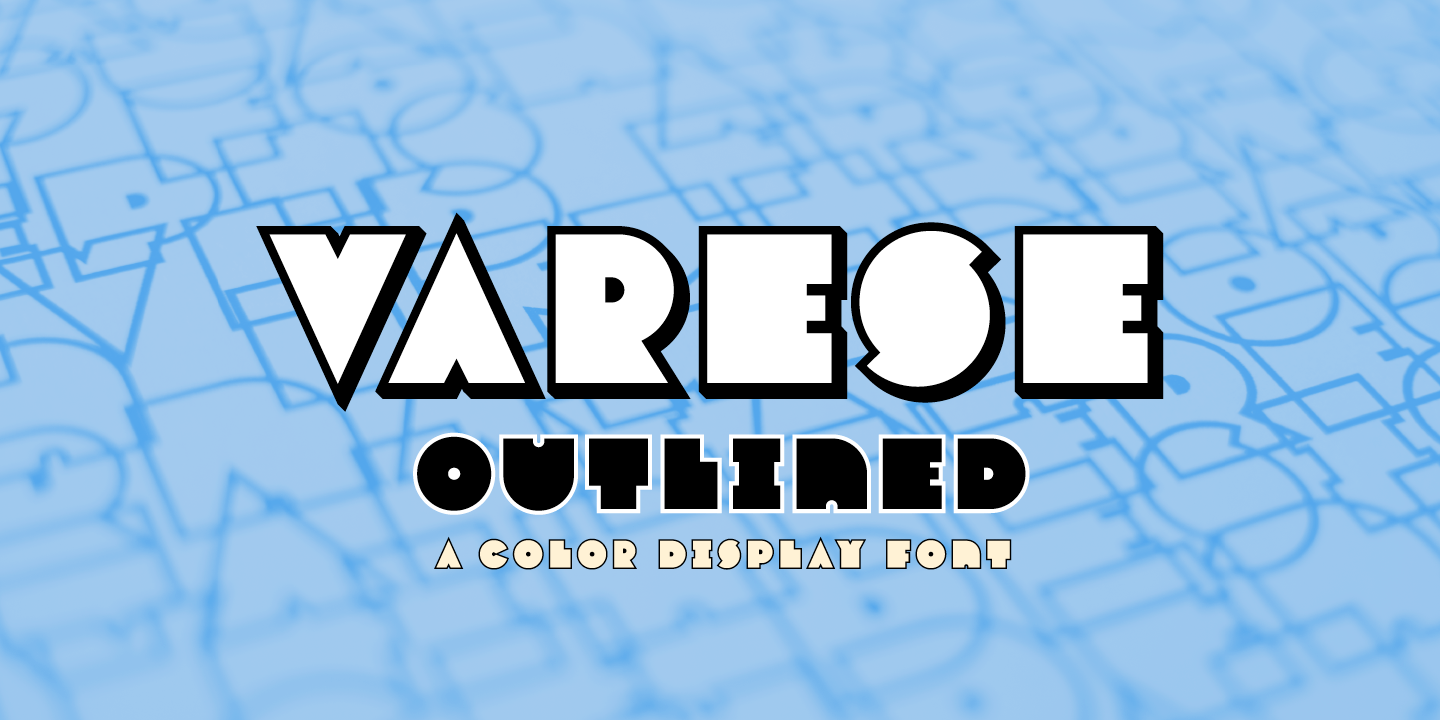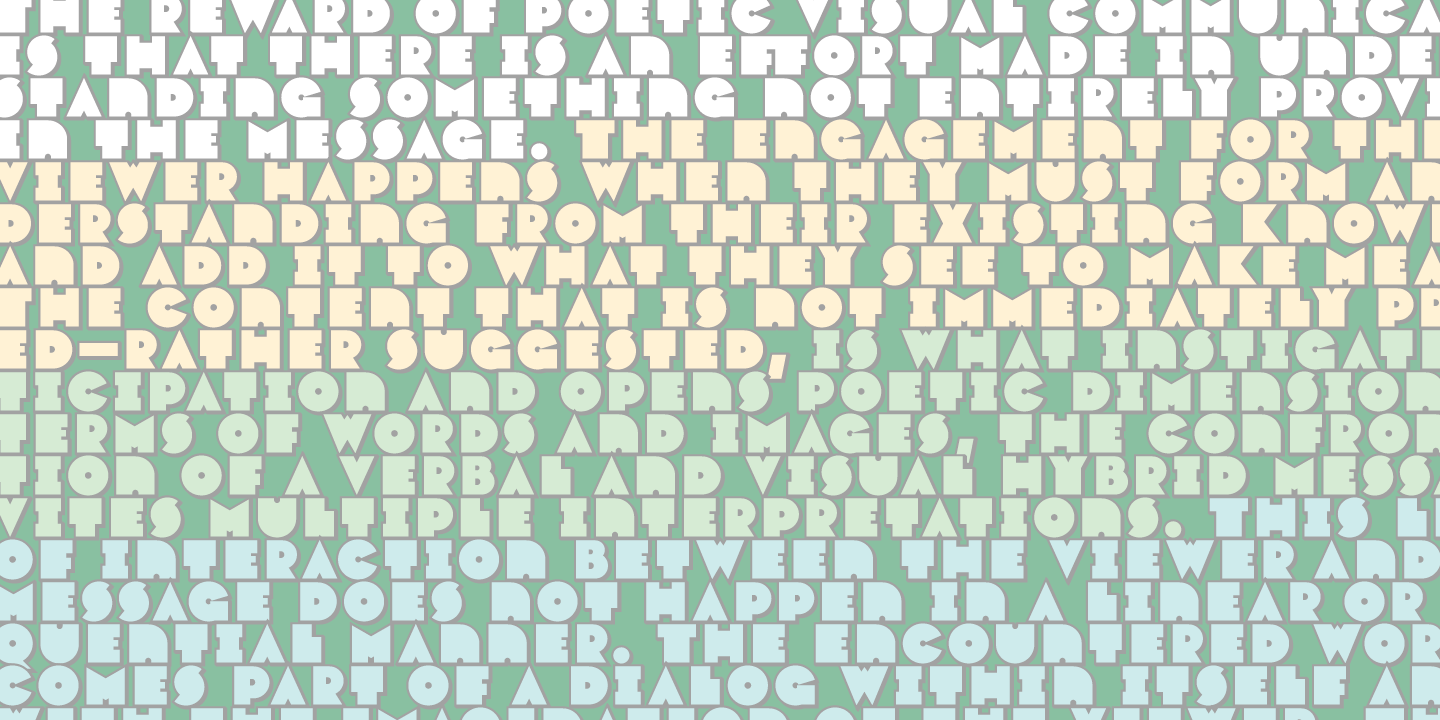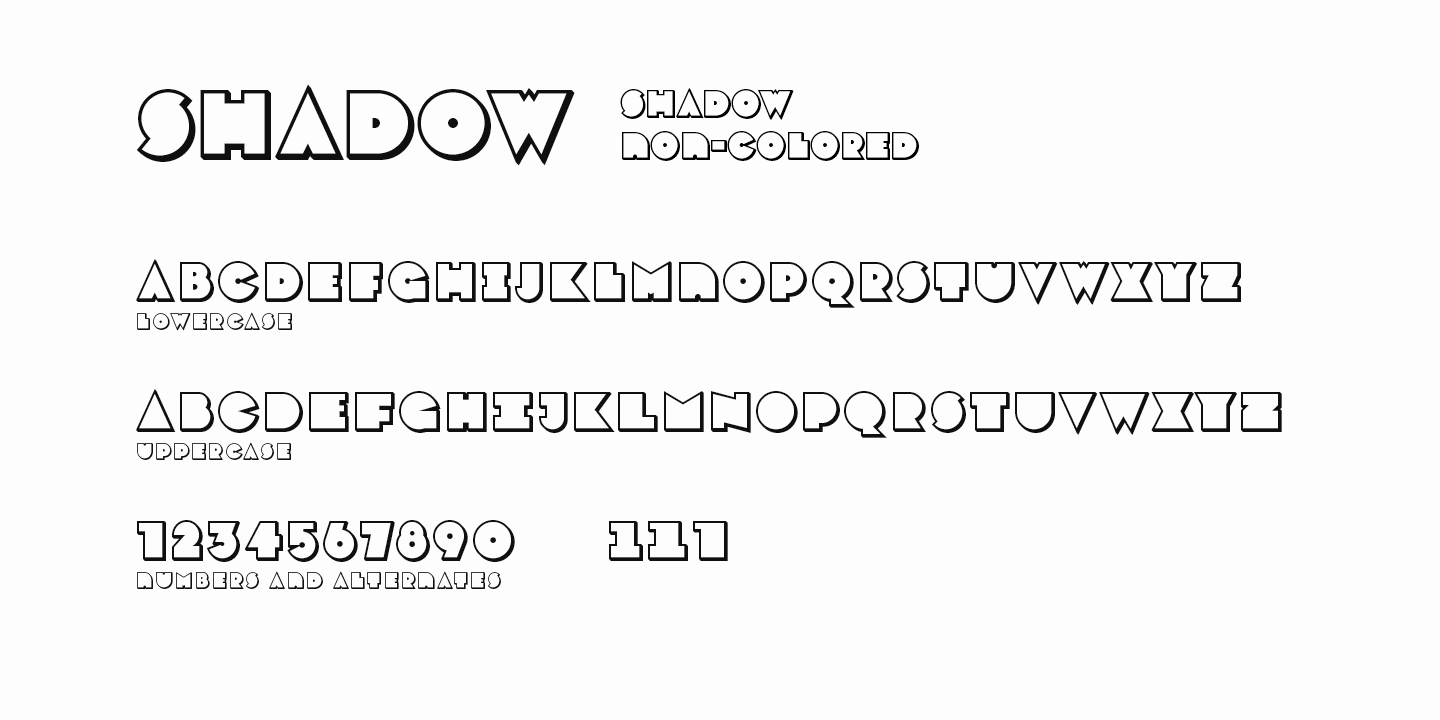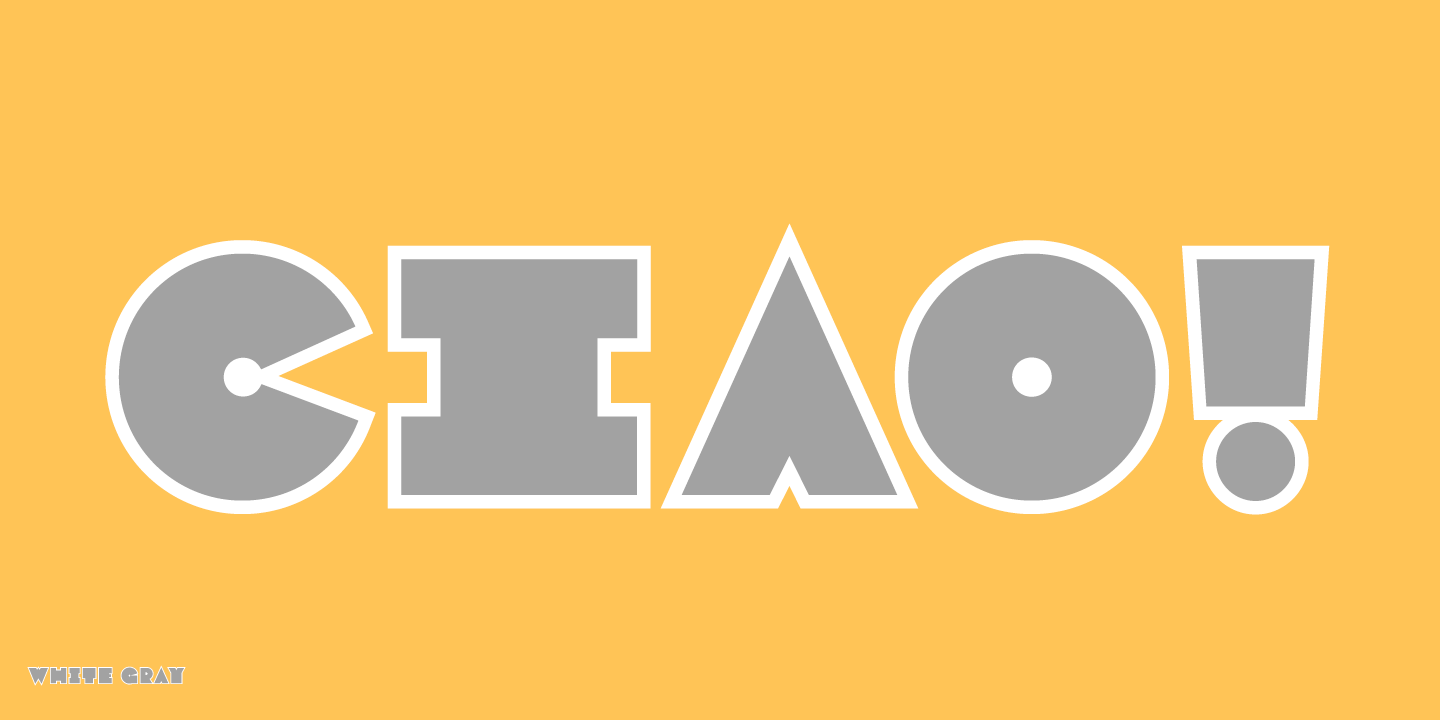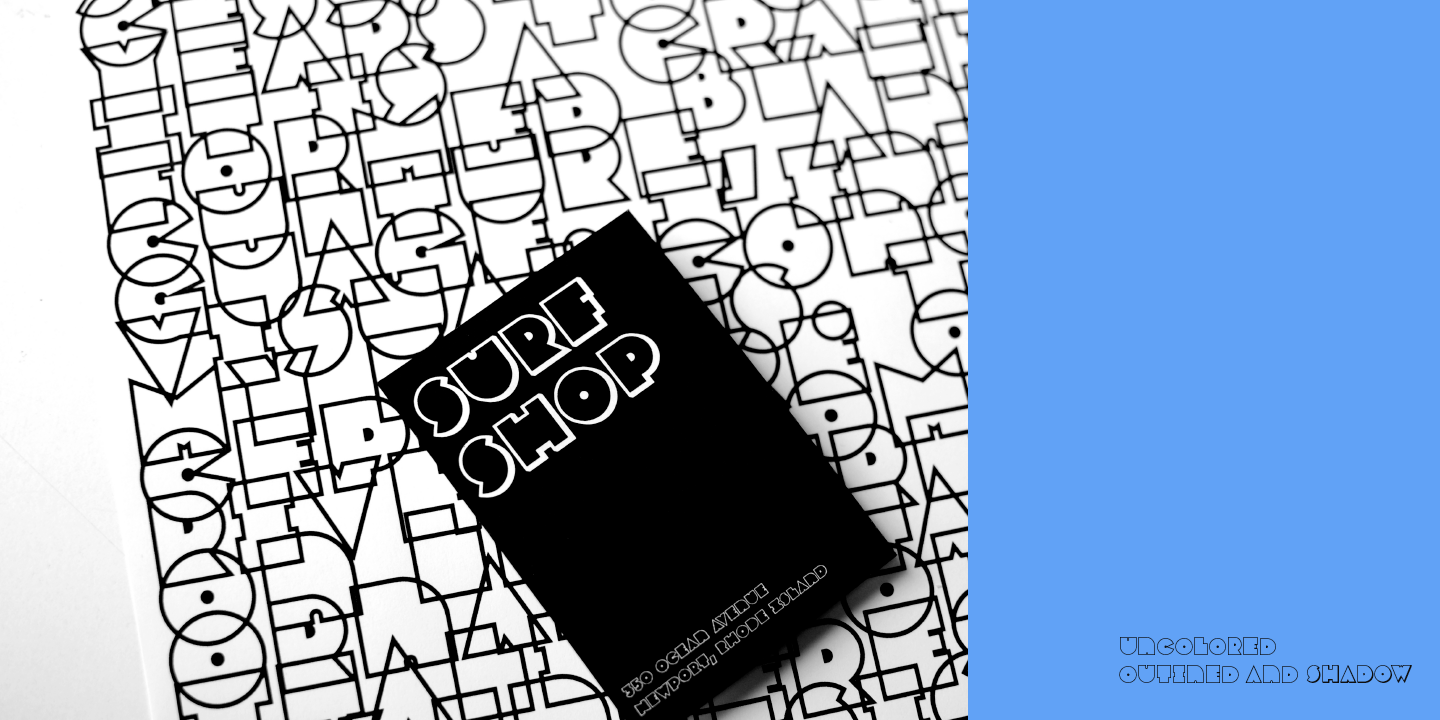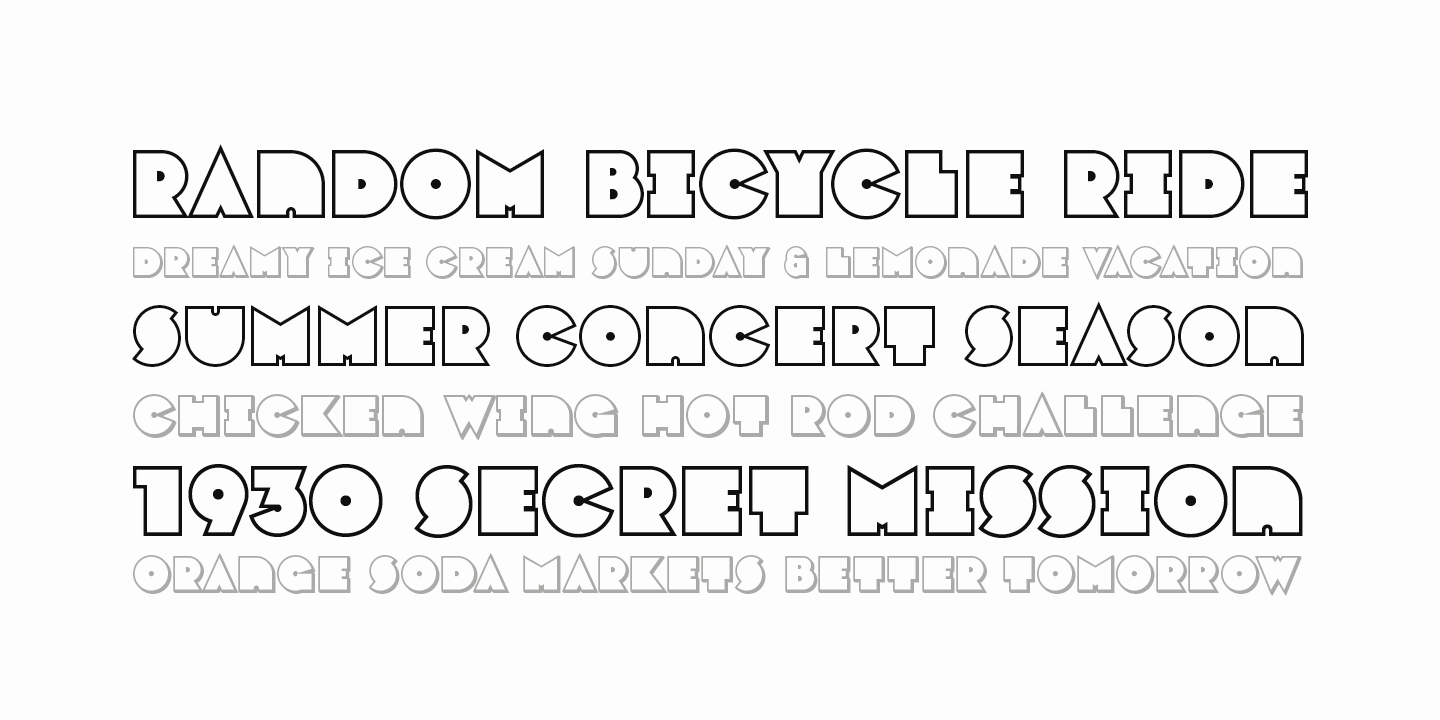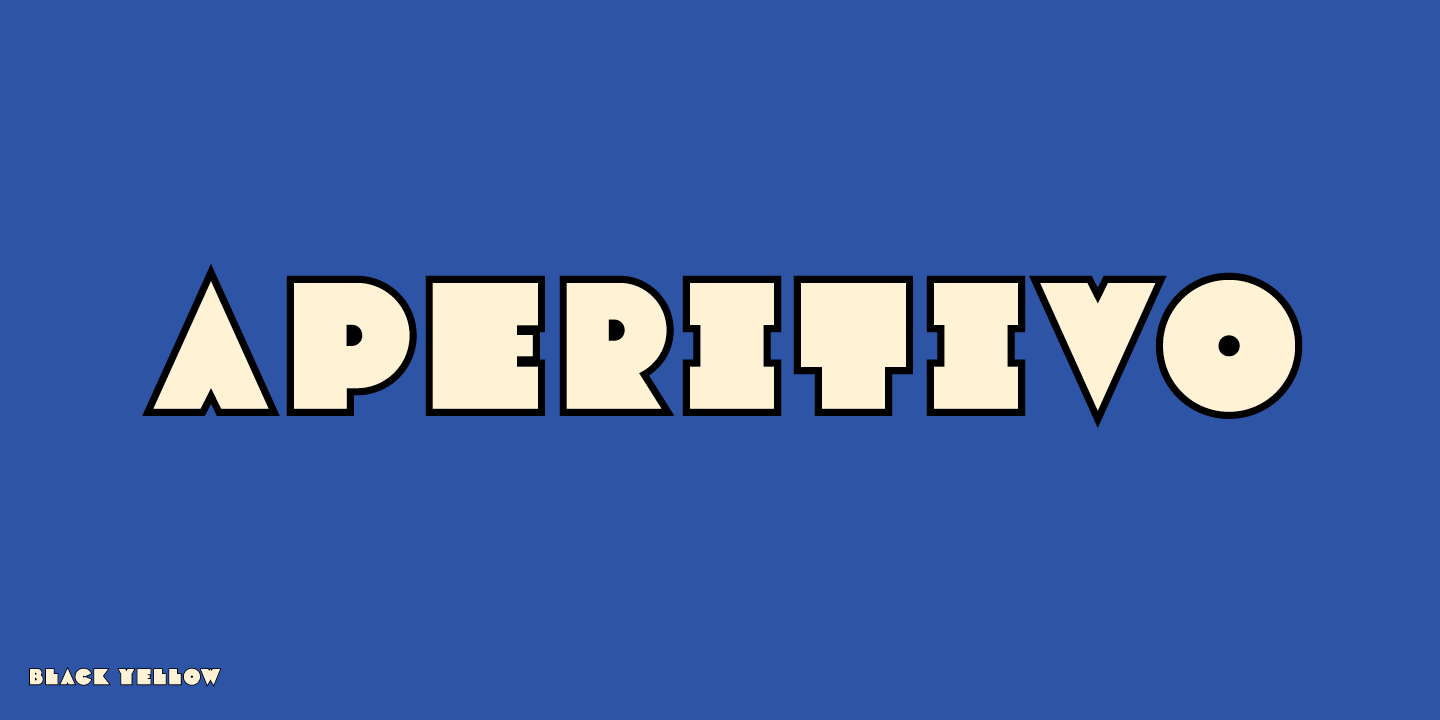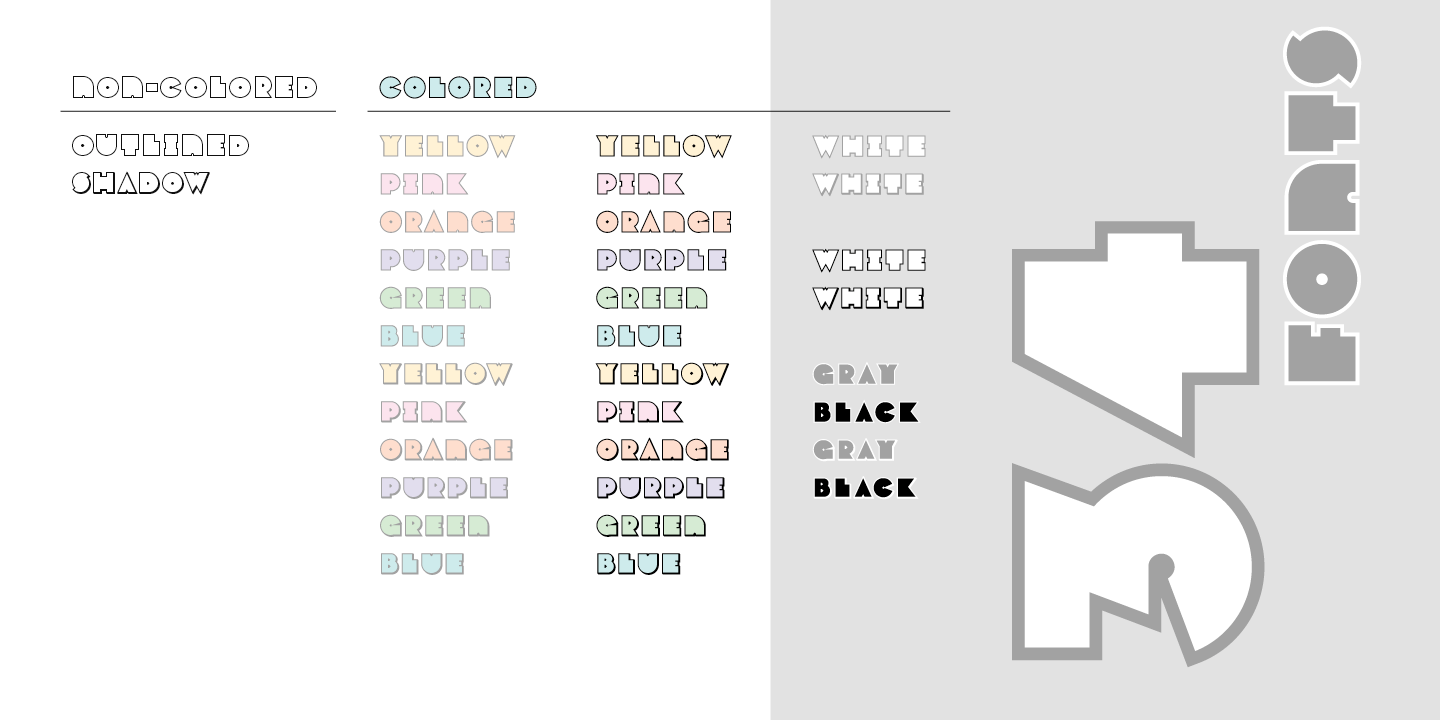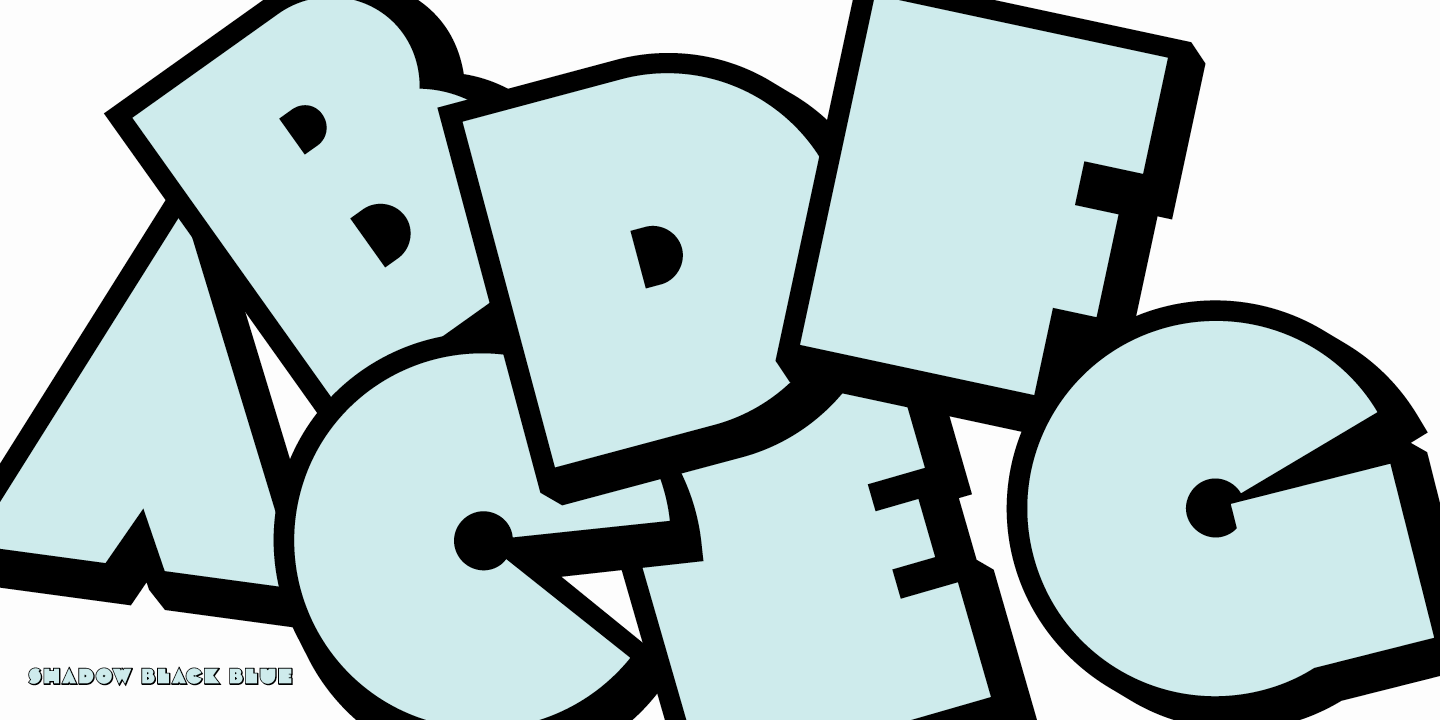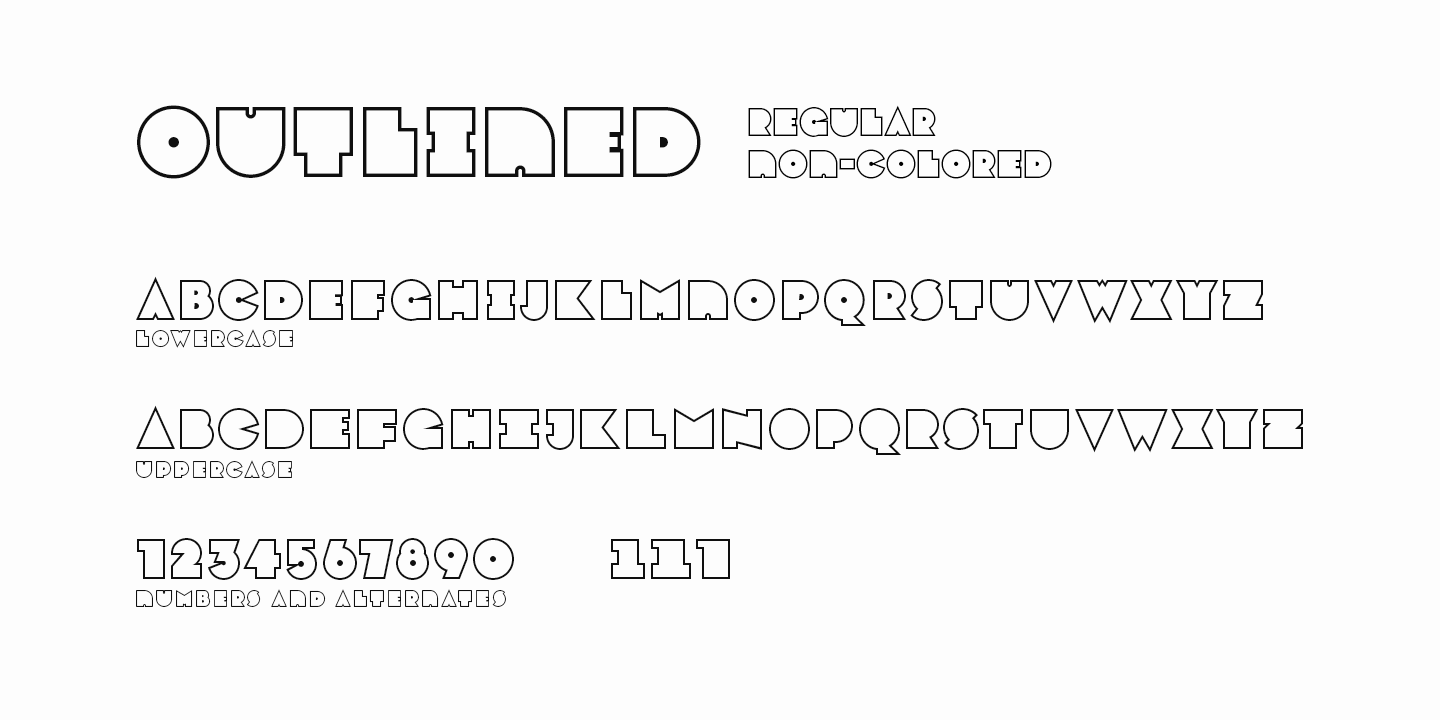
Varese Outlined
Font Family by Tarallo Design
Varese Outlined is the perfect font for giving content a retro, dimensional, and playful feel. Use it for headlines or short body text for an optimistic or nostalgic tone. It comes in two variations, outlined and shadow. It has standard uncolored and colored options. Please see the slides to know what each color font is named.?
This geometric and modular typeface was inspired by Italian posters of the 1920s and 1930s. Its design playfully explores the boundaries between unity and variety. The blocky characteristics lend it well to tightly composed text either horizontally or vertically.?
The lowercase is similar in form to the uppercase, yet many of the lowercase letters have interior spaces (counterforms). It comes with standard ligatures; ff, fi, fl, ffl and three alternate glyphs for number 1. ?
Varese Outlined has two siblings; Varese and Varese Soft. The designer suggests pairing Varese Outlined with his ornamental fonts FormPattern or FormPattern Color Two, Three, or Six.